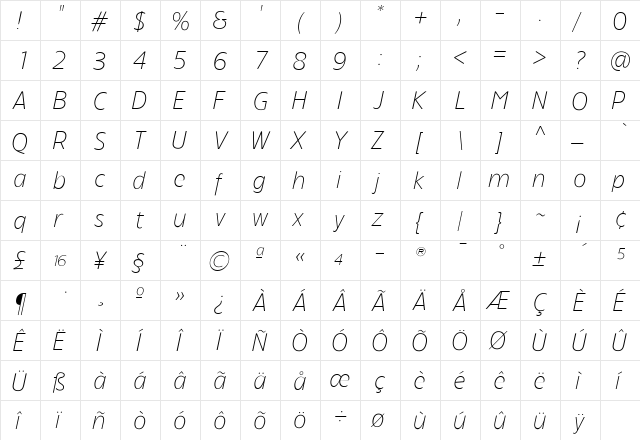
TFForever Light Italic Font Preview
| Foundry | J. Treacy,Typefaces,Inc |
| Year | 1988 |
Design Context for TFForever Typeface
TFForever takes a measured approach to typography — its balanced proportions and neutral character make it a reliable workhorse for both digital and print work. The dynamic lean of this cut emphasises speed and emphasis in any layout. The delicate stroke weight brings airiness and refinement to layouts.
Pro Tip: Try TFForever for annotation and caption copy alongside an upright companion — the contrast in angle creates a dynamic but ordered typographic system.